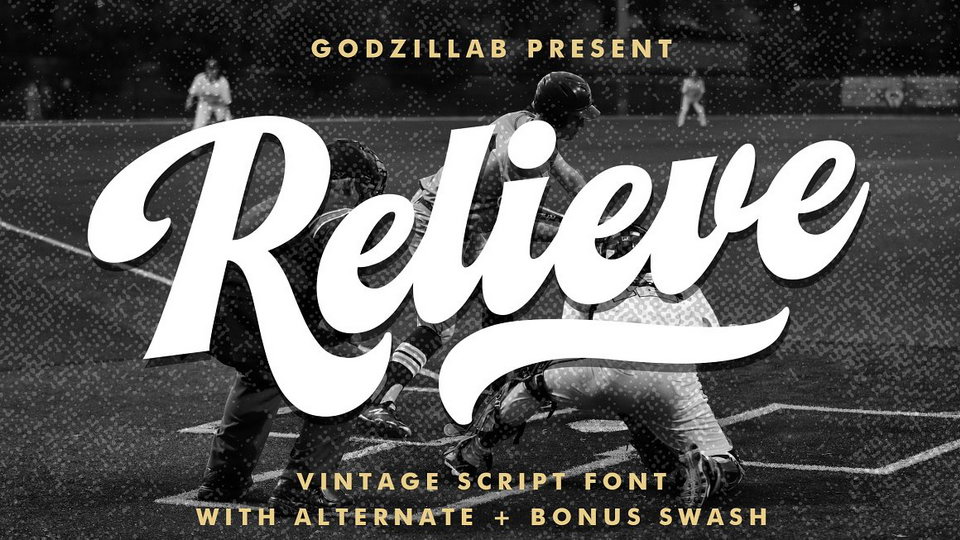
Relieve Vintage Script Font › Fontesk
Download Relieve font, a vintage typeface created with lettering process. Relieve is perfect for logo design, branding, labels, small amount text and print materials .
Designer: Godzillab